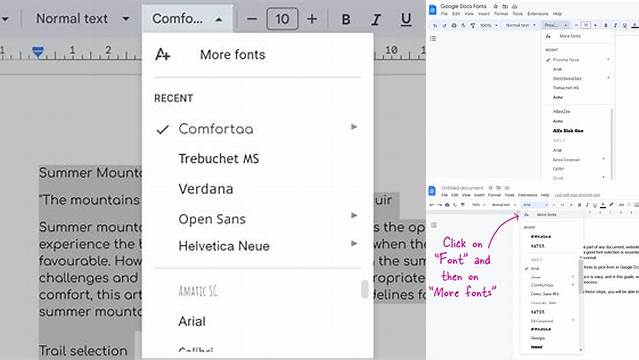
Teacher Fonts: How To Add Them To Google Docs
Are you a teacher looking to spice up your Google Docs with some unique and engaging fonts? Or maybe you're a student wanting to add a personal touch to your assignments? Well, you've come to the right place! In this guide, we'll walk you through everything you need to know about how to get teacher fonts on Google Docs. Weâll cover finding, installing, and using these fonts to create documents that stand out.
1. Understanding Teacher Fonts
So, what exactly are teacher fonts? These are fonts that are particularly useful for educational materials. They often include clear, easy-to-read styles perfect for young learners, or creative, whimsical fonts to capture students' attention. Understanding the type of font you need is the first step to effectively enhancing your documents. Using the right font can drastically improve readability and engagement, especially for younger audiences.
What Makes a Font a "Teacher Font"?
Several characteristics define a good âteacher font.â Readability is key. Fonts should be clear and easy to decipher, even for early readers. Think about fonts like Comic Sans MS (yes, it has its place!), Open Sans, or Century Gothic. These fonts have simple, clean designs that minimize confusion. Another important aspect is character differentiation. Lowercase letters like âa,â âg,â and âlâ should be distinct to avoid misinterpretation. Finally, consider the overall aesthetic. Is the font engaging and appropriate for the age group youâre targeting? A playful font might work well for elementary students, while a more professional font might be better for older grades. When you are choosing your font, make sure it matches with the content to maximize your audience.
Why Use Specific Fonts for Educational Materials?
Using teacher fonts isn't just about aesthetics; it's about functionality. The right font can significantly improve reading comprehension and reduce eye strain. For students with dyslexia or other learning disabilities, a clear, well-spaced font can make a world of difference. Furthermore, visually appealing fonts can increase student engagement and make learning materials more enjoyable. By selecting fonts that are both readable and engaging, you can create a more effective and inclusive learning environment. Teacher fonts are a great way to show that you're dedicated to making the most comprehensive learning experience for your students.
2. Finding the Right Fonts for Teaching
Finding the perfect fonts can feel like searching for a needle in a haystack, but don't worry! There are plenty of resources available to help you discover the ideal typefaces for your teaching materials. Whether you're looking for something playful or professional, hereâs how to get started.
Exploring Google Fonts for Educational Use
Google Fonts is a treasure trove of free, open-source fonts that are perfect for educational use. To access Google Fonts, simply visit fonts.google.com. You can browse fonts by category, popularity, or even specific properties like thickness and slant. Some popular choices for teachers include Open Sans, Lato, and Roboto. These fonts are clean, readable, and versatile enough for a wide range of subjects and grade levels. Plus, they're incredibly easy to integrate with Google Docs, which weâll cover later.
Also, another great option is Montserrat. Google Fonts provide a lot of fonts that you can choose to use to teach and make your Google Docs more interesting. If you want to add something of yourself to the documents, Google Fonts is the way to go, guys!
Tips for Choosing Readable Fonts
When selecting fonts for your teaching materials, readability should be your top priority. Look for fonts with clear, simple letterforms and ample spacing. Avoid fonts that are overly decorative or have unusual shapes, as these can be difficult for students to read. Itâs also a good idea to test out different fonts with a sample group of students to see which ones they find easiest to read. Consider factors like font size, line height, and background color to optimize readability. A little experimentation can go a long way in finding the perfect font for your needs. Always consider testing it out to students before implementing the font as a norm for your classes.
30. Legal Considerations When Using Downloaded Fonts
When downloading fonts from the internet, it's important to be aware of the legal considerations. Not all fonts are free for commercial use. Some fonts are only licensed for personal use, while others require a fee for commercial use. Always read the font license carefully before using a downloaded font in your teaching materials. If you're unsure about the terms of the license, contact the font designer or distributor for clarification. Using a font without the proper license can result in legal penalties. To avoid any issues, stick to fonts that are licensed for commercial use or consider purchasing a commercial license for your favorite fonts.